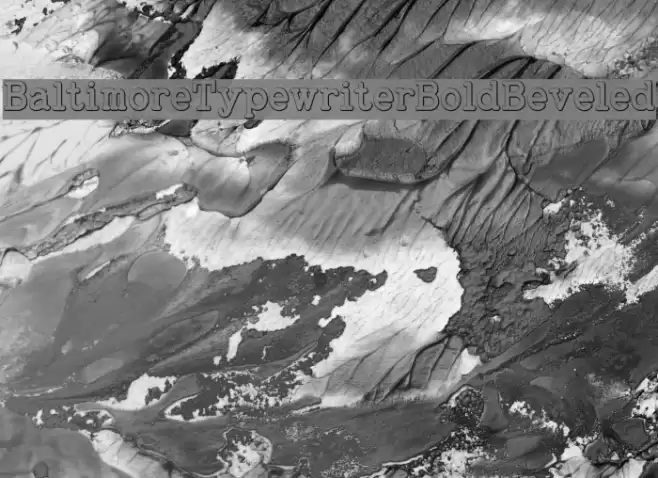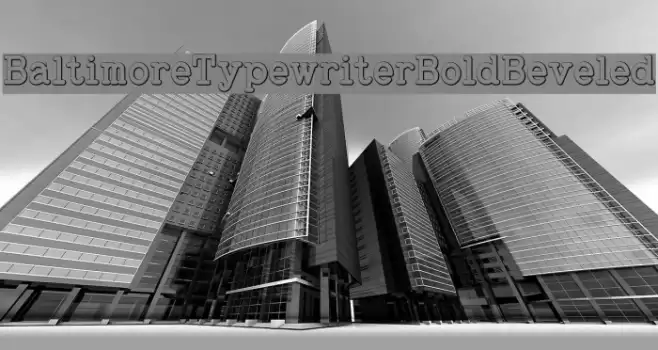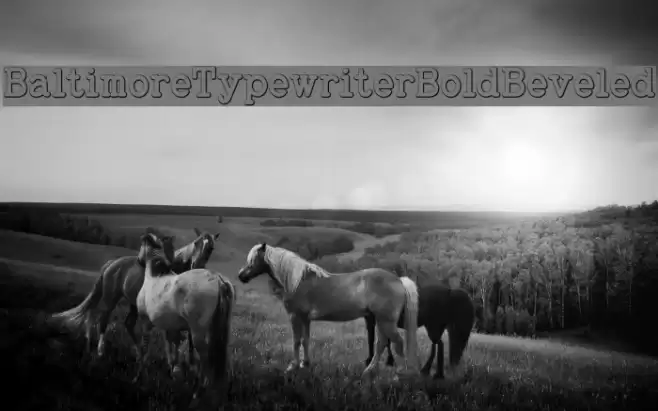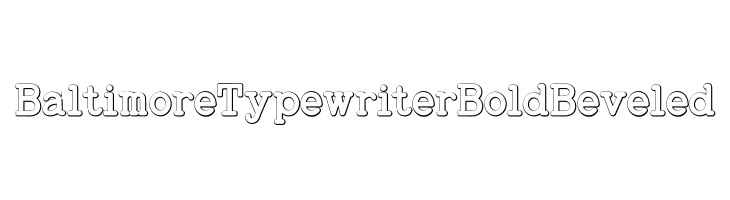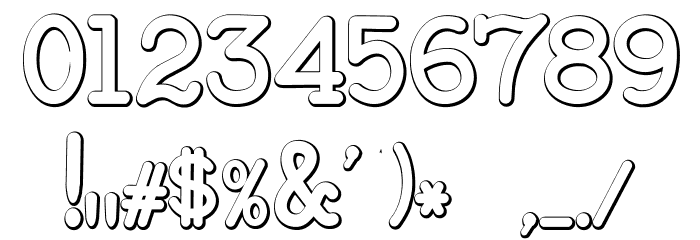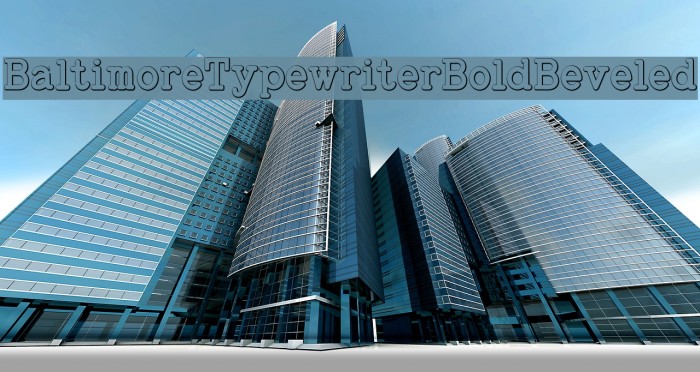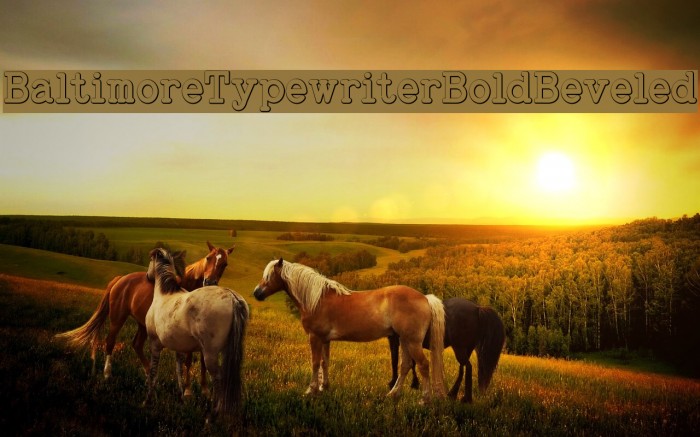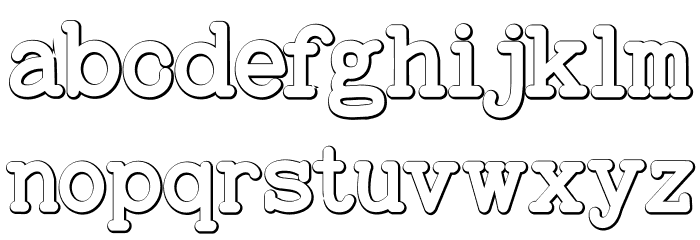
BaltimoreTypewriterBoldBeveled Font
BaltimoreTypewriterBoldBeveled Description
This font features a bold, beveled design with a typewriter-inspired aesthetic. The characters are outlined, giving them a three-dimensional appearance that adds depth and interest. The uppercase and lowercase letters maintain a consistent style, with rounded edges and a uniform thickness that enhances readability. The numerals and special characters are crafted with the same attention to detail, ensuring a cohesive look across all text elements. This font's unique combination of vintage typewriter charm and modern boldness makes it versatile for various design projects.
A bold, beveled typewriter-style font with a three-dimensional outline from Uncategorized fonts.
- Proposed Projects: Ideal for retro-themed designs, posters, branding, and any project requiring a distinctive, eye-catching typeface.
- Overall Style: Vintage